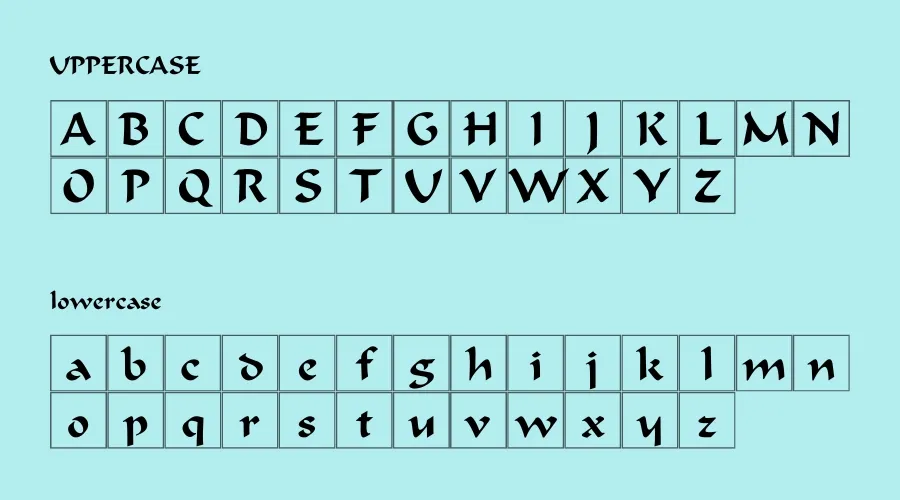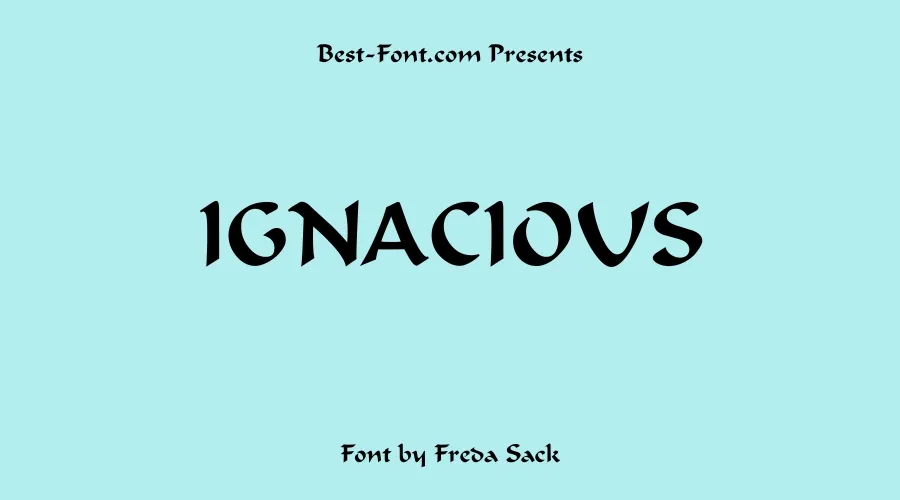
Ignacious Font
About Ignacious Font
Ignacious Font is designed by Freda Sack and it is a decorative typeface almost all developers may use it for greeting cards, invites, names, trademarks, marketing, and a variety of other things. This lovely, typeface will improve any event.
This typeface is incredibly appealing and has a wide range of applications, including mockups, emblems, business cards, and invitation cards.
For a design that seems more professional, use this typeface. It will be possible for you to make a distinctive design with this typeface.